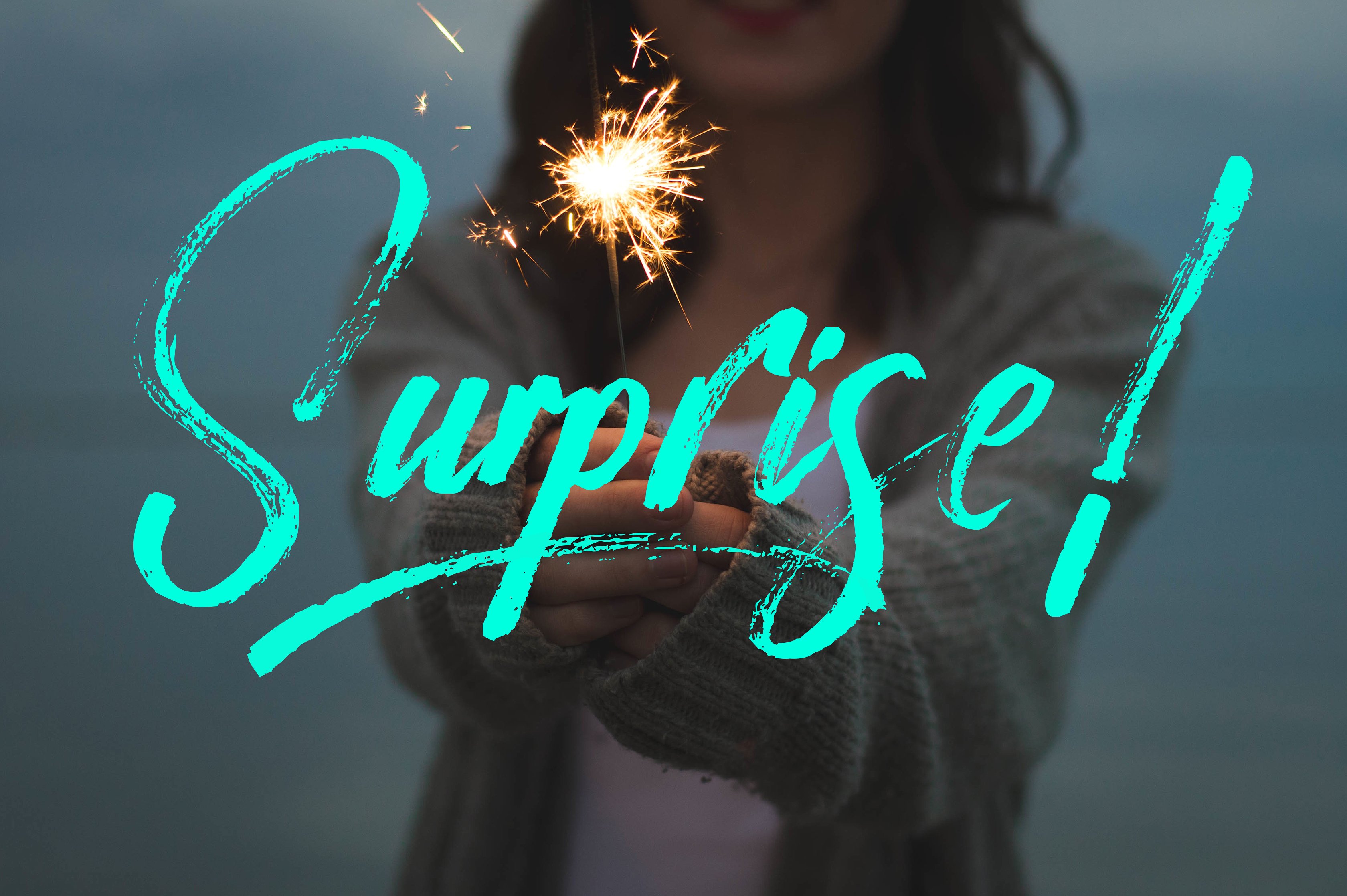
Surprise Handbrushed
Surprise Handbrushed Font
Surprise is a dry handbrushed font, designed to combine perfectly and allow you to create stunning hand-lettering quickly and easily. Ideal for logos, handwritten quotes, product packaging, header, poster, merchandise, social media & greeting cards.